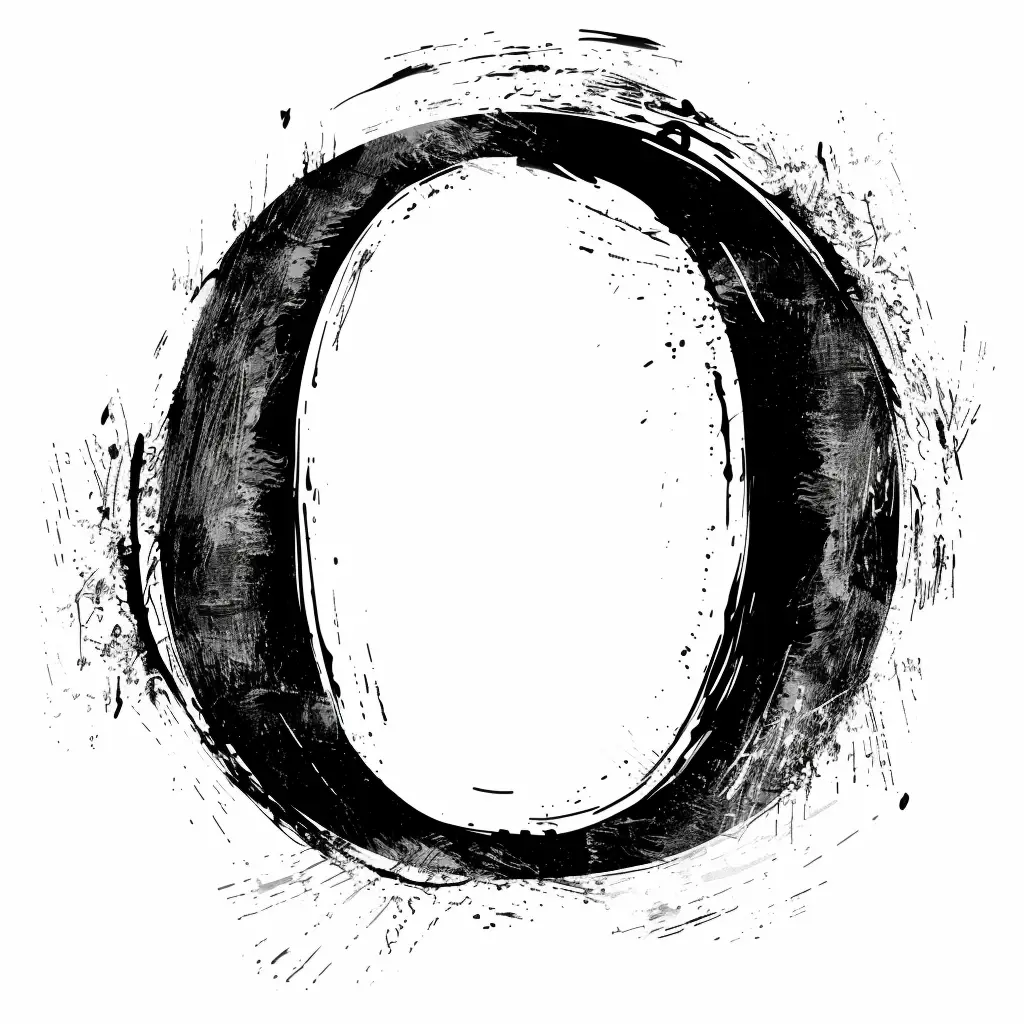
The image features a stylized, hand-drawn letter "O" rendered in bold black brushstrokes against a white background. The design has a rough, textured appearance with splatters, smudges, and uneven edges, giving it an artistic, grunge-style aesthetic. The contrast between the dark, expressive strokes and the clean white space emphasizes the letter’s form while maintaining a dynamic, handcrafted feel.